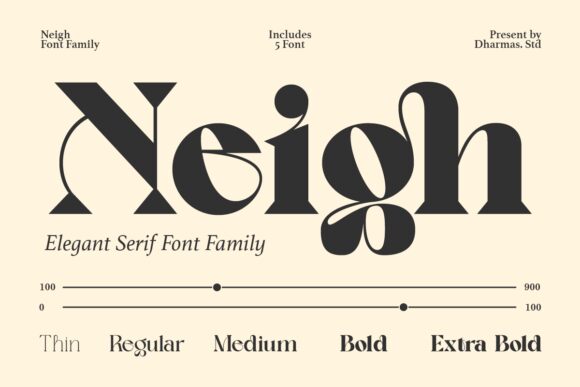
Neigh is a retro serif font that was designed by Dharmas Studio. The font has bold strokes and angular serifs which give it an antique appeal with a touch of eternity. The thick and thin lines are dramatically juxtaposed for a strong visual impact that attracts attention towards itself. This typeface has been built with strength so it can be used in various design applications such as eye-catching headlines, impactful branding or nostalgic editorial layouts and retro-inspired packaging.
The versatility of Neigh makes this typeface suitable for any project where designers want to bring out some vintage style into their work. It’s an attention-grabbing headline or title font because of its boldness while logotypes would benefit from using this typeface too since they can make statements powerful enough. At the same time, magazines covers should have that timeless look about them sometimes – which is exactly what you get when leveraging on Neigh’s retro charm in editorial design; book covers could also use such treatment along with other print materials like brochures or posters. Moreover, there is no denying the fact that brands need something different sometimes - something engaging like Neigh for instance which not only represents but also reflects heritage through packaging design elements thus creating authenticity among consumers.